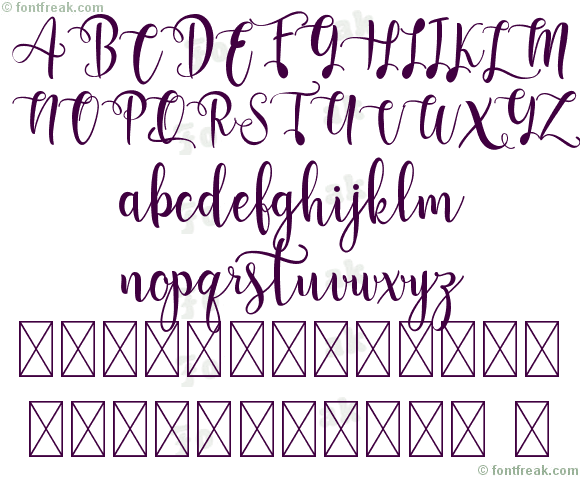
Sweet Love Demo
Sweet Love Demo, designed by Burhan Afif, is a charming script font that beautifully embodies romance and elegance. This font belongs to the category of decorative scripts, characterized by its graceful and fluid letterforms that evoke feelings of warmth and affection. The stroke weight is consistent, offering a gentle contrast that enhances readability while maintaining an artistic flair. Its well-balanced spacing allows for seamless integration into various design projects, making it a versatile choice for many applications.
With its whimsical swirls and soft curves, Sweet Love Demo is perfect for wedding invitations, where it can convey the joy and beauty of love. Additionally, it can be used effectively in greeting cards, adding a personal touch that resonates with recipients. The font's inviting style also makes it ideal for branding in cafes or bakeries, where a warm, friendly atmosphere is essential. Content creators can leverage this font in social media graphics or blogs focused on lifestyle, love, or relationships, ensuring that their messages come across with a touch of elegance.
The target audience for Sweet Love Demo includes graphic designers seeking to add a romantic touch to their projects, small business owners who want to create a welcoming brand image, and content creators looking to enhance their visual storytelling. The Sweet Love Demo font free download makes it accessible for anyone eager to incorporate its delightful style into their work.
What sets Sweet Love Demo apart is its ability to blend artistry with functionality. It captures the essence of love through its design while remaining practical for everyday use. Whether you’re crafting a heartfelt invitation or a captivating poster, this font will undoubtedly elevate your creative endeavors.